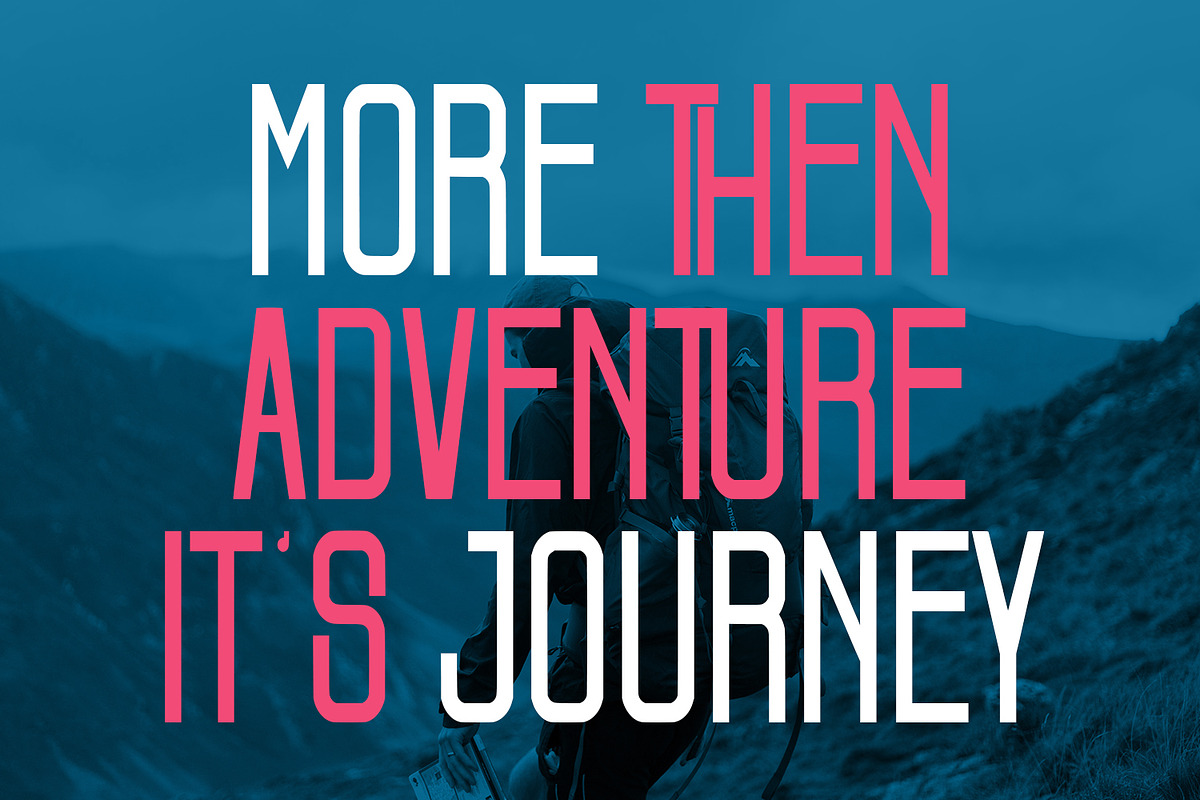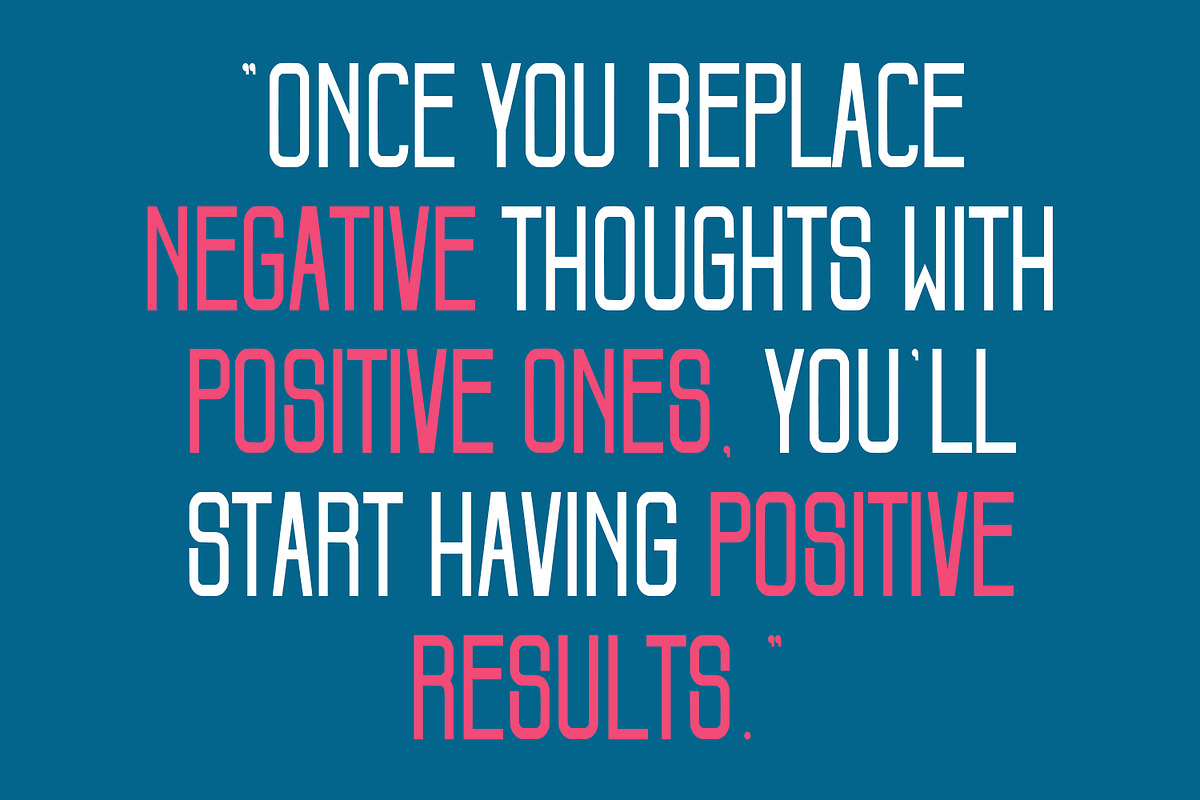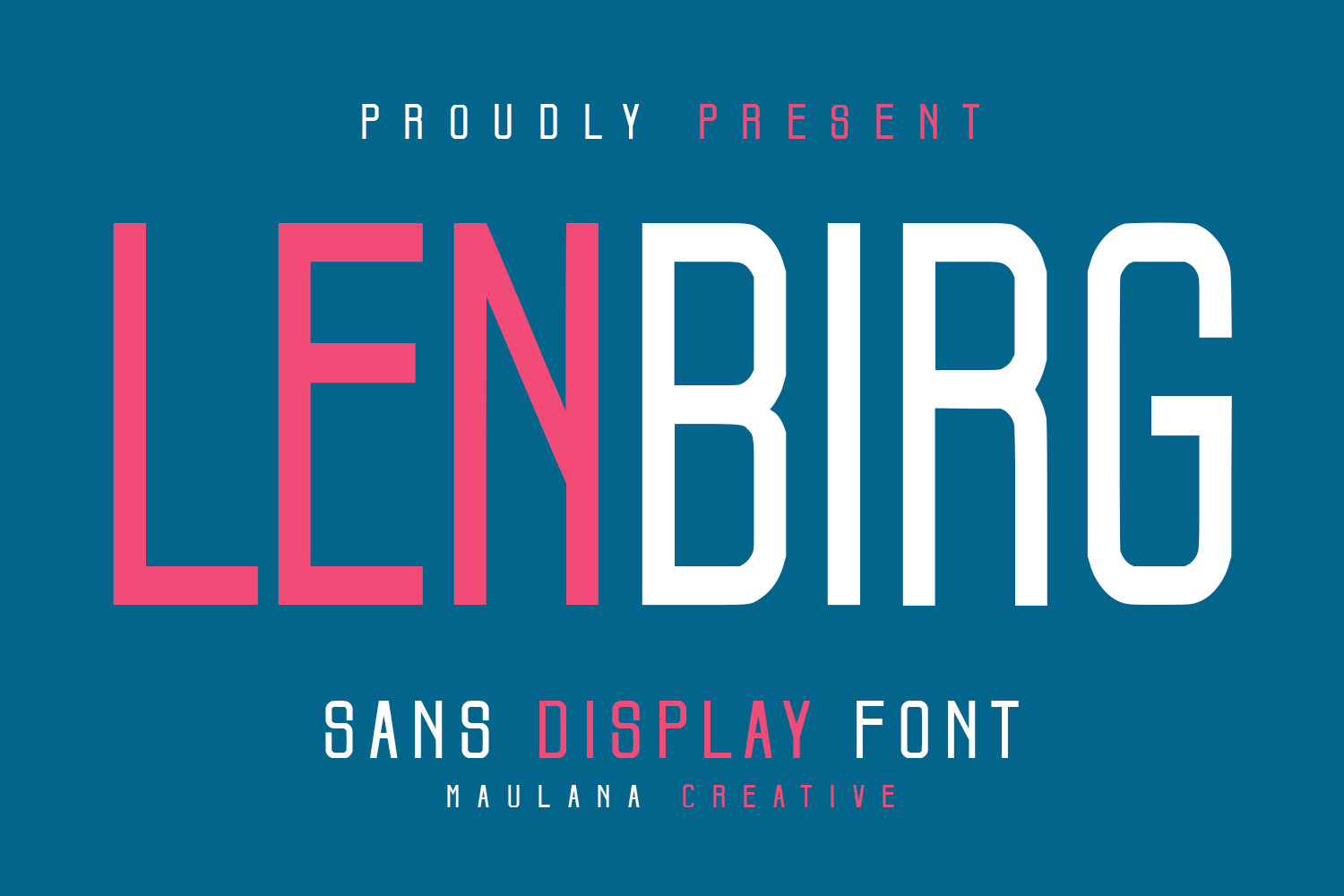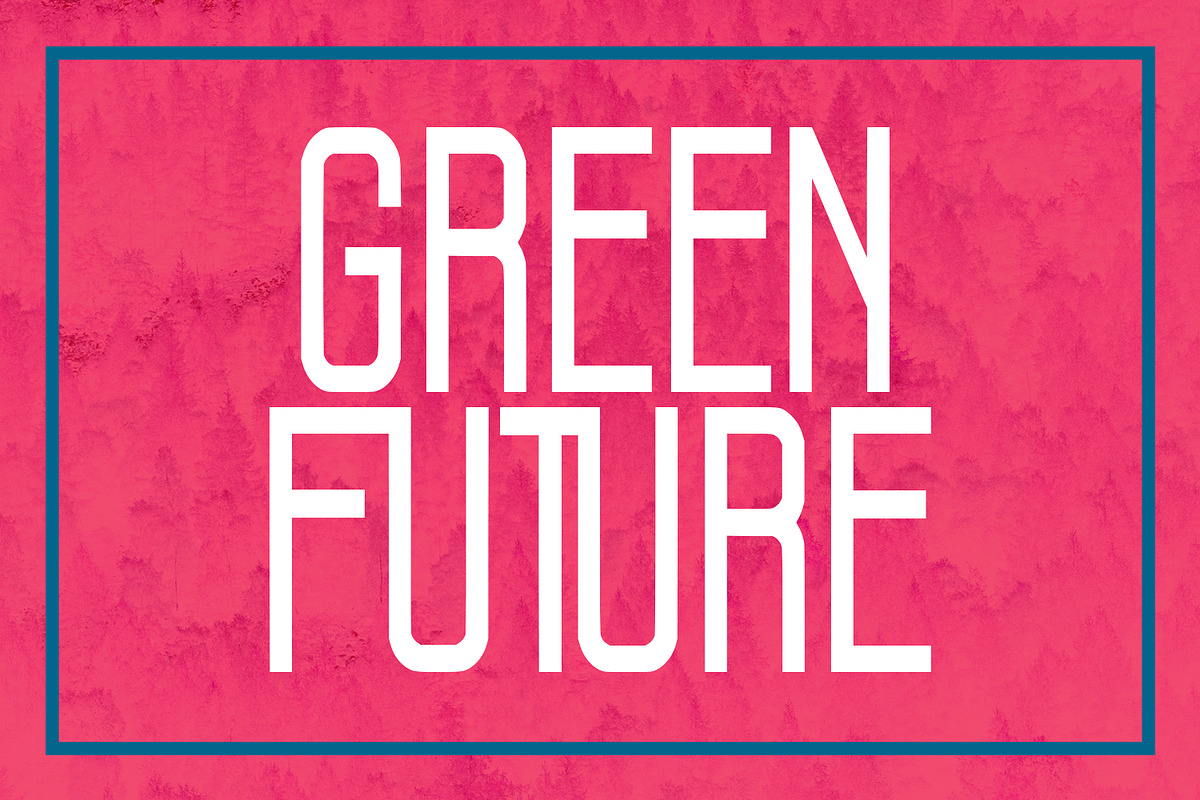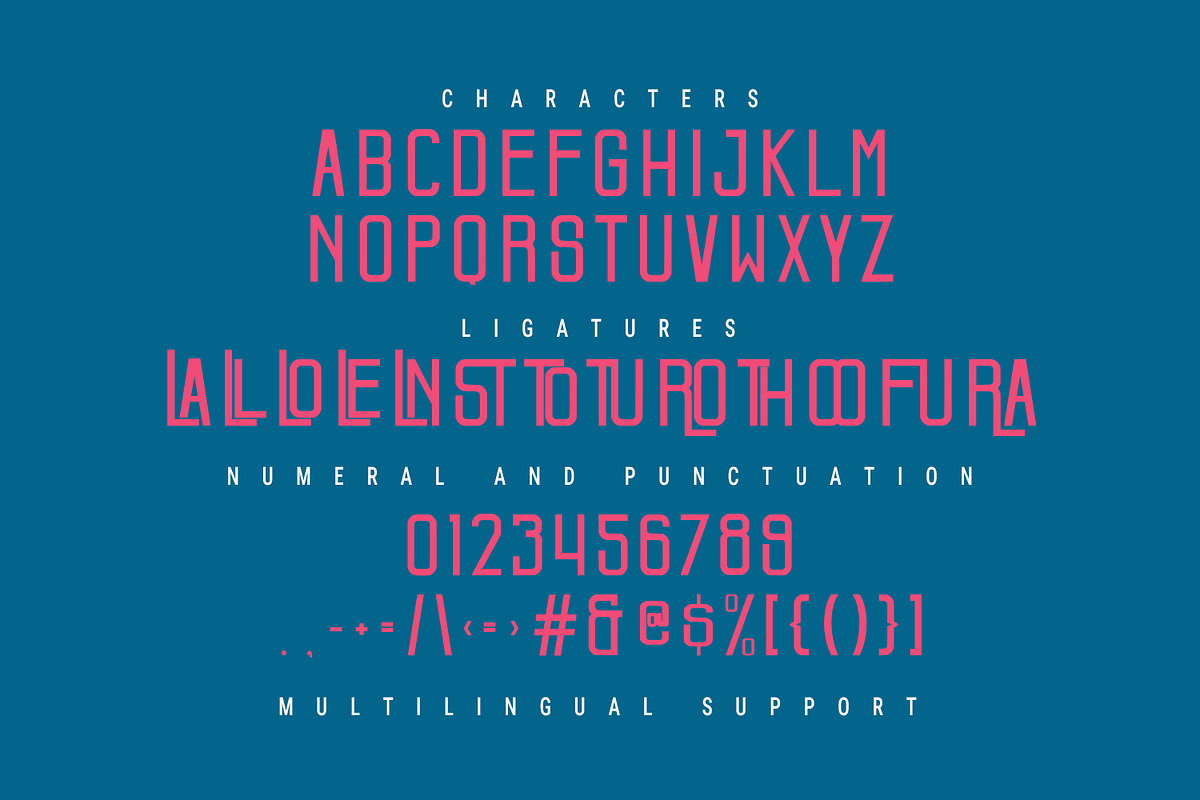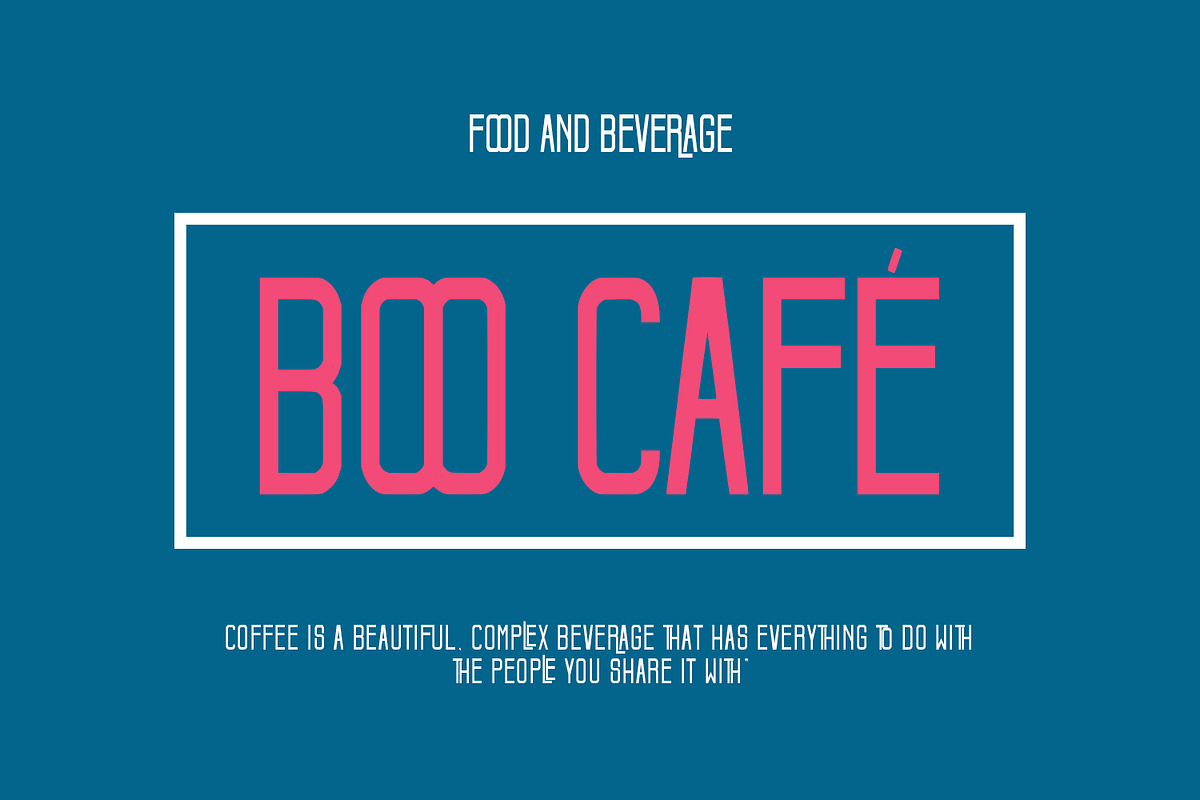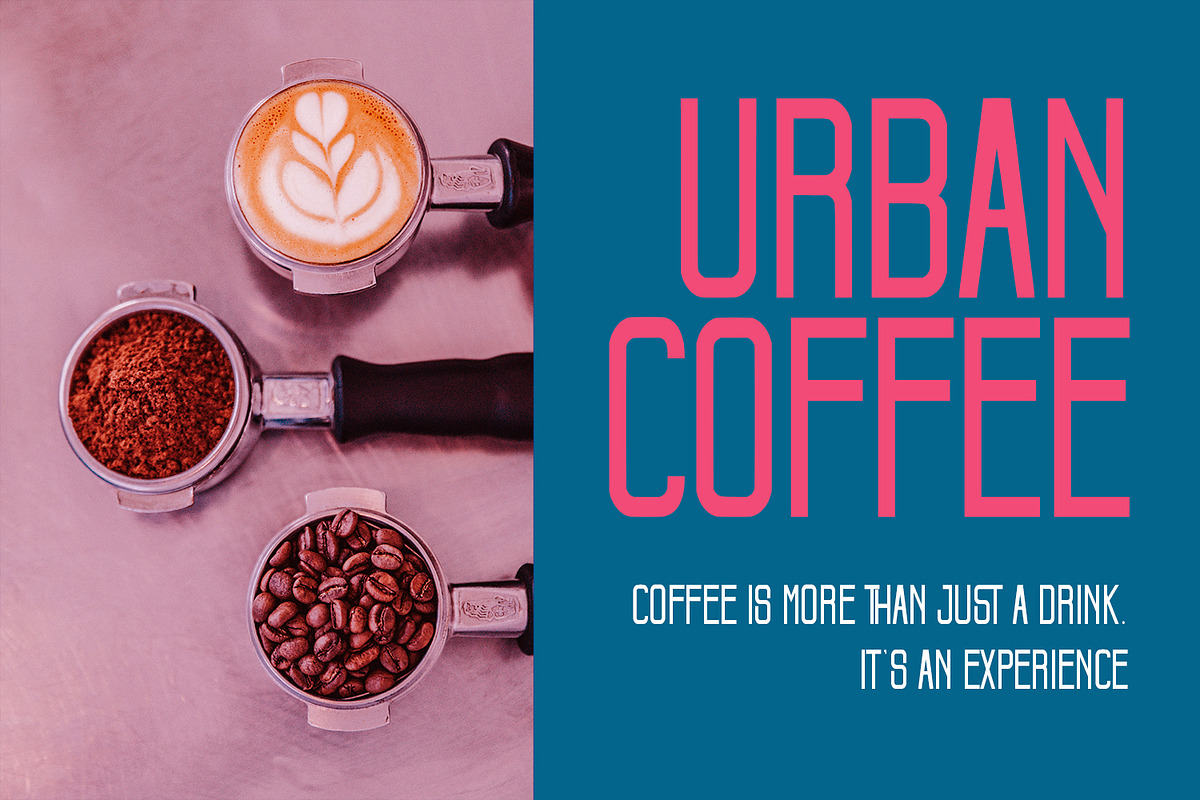
Lenbirg Sans Display Font
Lenbirg is a modern sans serif font. With sharp stroke, fun character with a bit of ligatures. To give you an extra creative work. Lenbirg font support multilingual more than 100+ language. This font is good for logo design, Social media, Movie Titles, Books Titles, a short text even a long text letter and good for your secondary text font with sans or serif. Make a stunning work with Lenbirg font.